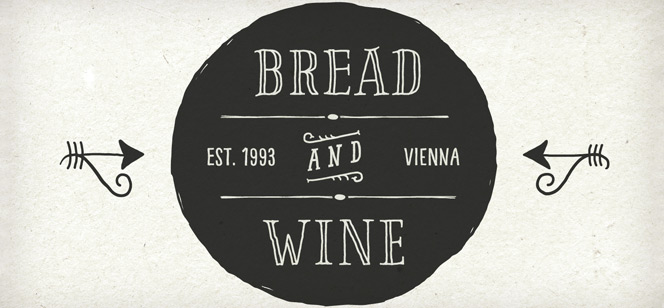
Pinto font
With multiple contrasting designs in one family, Pinto font, designed by Vienna based typographer Georg Herold-Wildfellner, shows a great flexibility and variety. All fonts were designed to complement each other and enable you to take your projects where ever you want them to go. Pinto font works similar to a toolbox: four distinct yet related subfamilies include shadow-, outline-, display- or layer-variations. On top of that is Pinto NO_05, a set of more than 800 different ornaments to dress up any typographic project. Browse through tons of swashes, flourishes, dividers, corners, ribbons, banners, frames, arrows, hearts and stars. If you’d prefer, purchase single fonts within this family. Each is strong enough to stand on its own!
Looks like it is hand-lettered but in fact it’s a digital font
Pinto font is a striking handwritten family that lets you transform type into an exciting and beautiful piece of work with a personal touch. The irregular, hand-lettered look adds a real human touch to things and comes along with a lot of loving details. Combine all styles the way you want, add some ornamental swashes or banners and even a single word becomes magnificent.
The extensive character set includes uppercase letters in two automatically alternating versions (activate OpenType “Contextual Alternates”). All ornaments are abundant with details and often available in different stroke thicknesses. Scale them up to meet your personal needs!
The Pinto Family, an overview:
Pinto NO_1: Narrow Sans Serif (additional option: NO_01 Shadow)
Pinto NO_2: Slab Serif (plus a playful variant with serifs drawn as outline)
Pinto NO_3: Latin script (plus 3 versions: Shadow, Engraved & Engraved Display)
Pinto NO_4: Western style – this one is for free! (extra: two layer-option)
Pinto NO_5: 800+ typographic ornaments in 3 fonts, separated into stylistic sets
The Pinto family in total includes 14 styles. Used solo or combined with other styles from this large family, Pinto is tailored for food-, magazine-, book- and packaging-design.